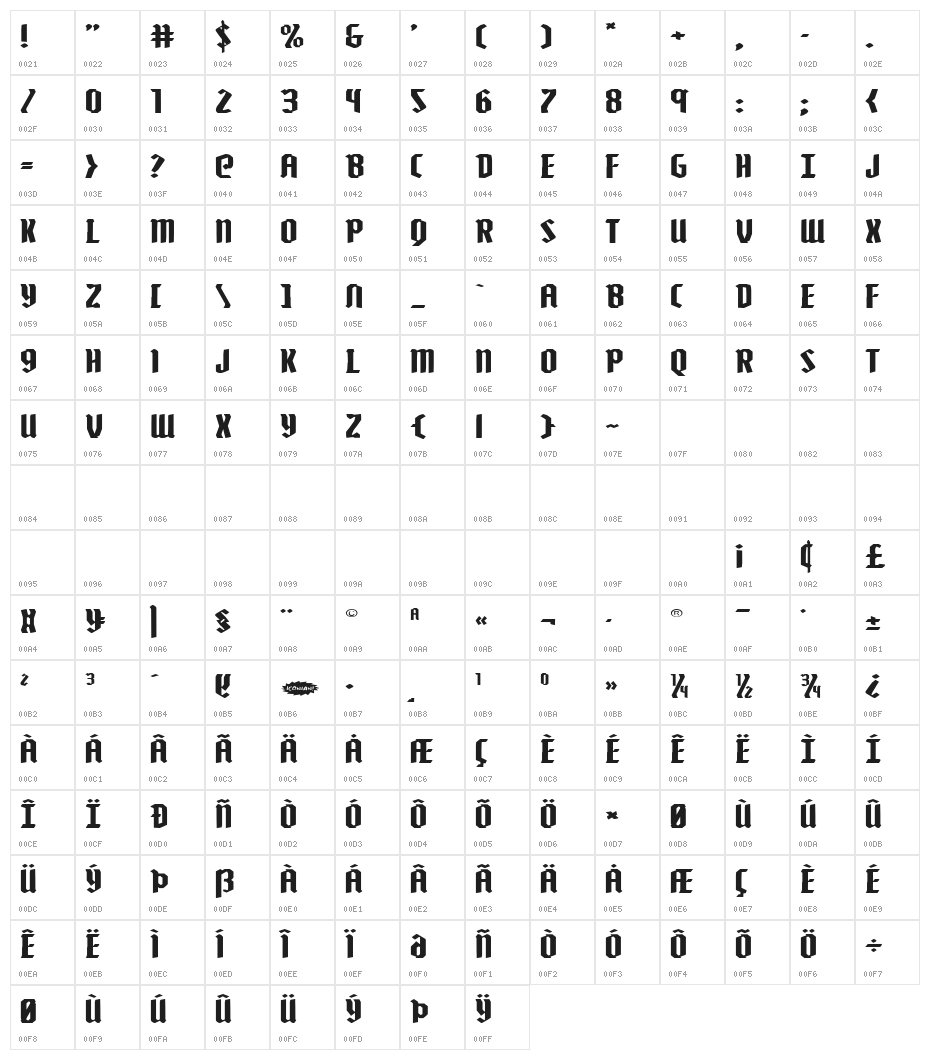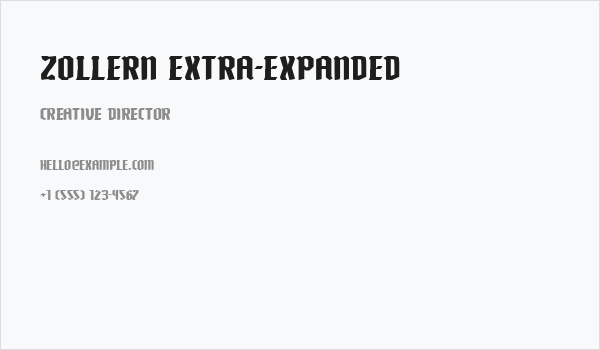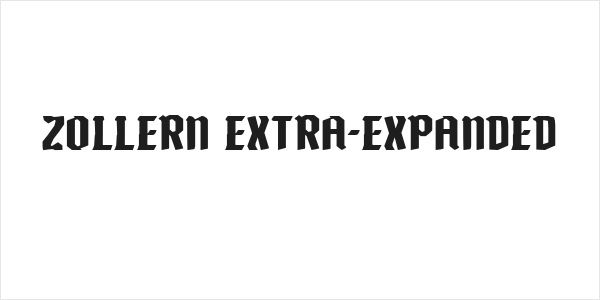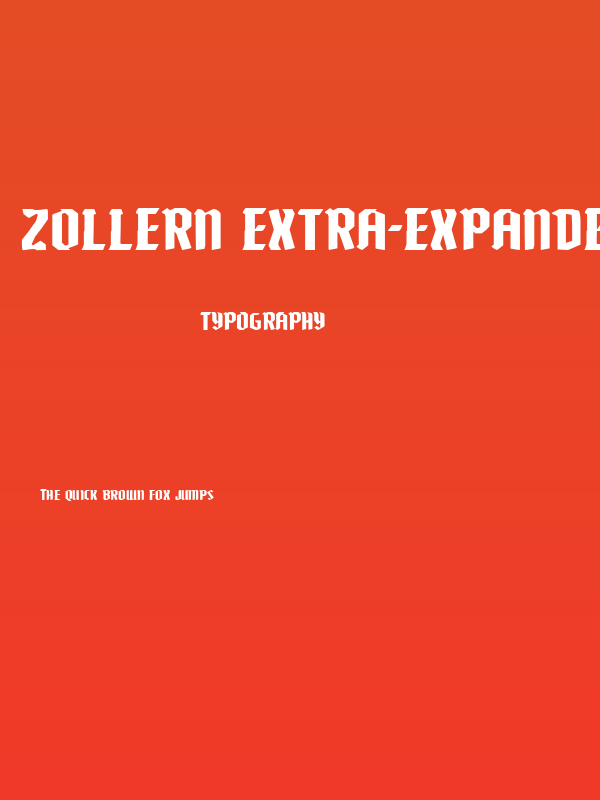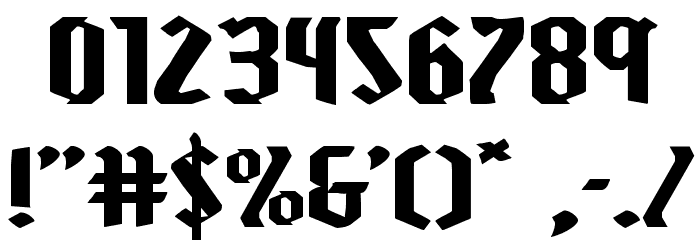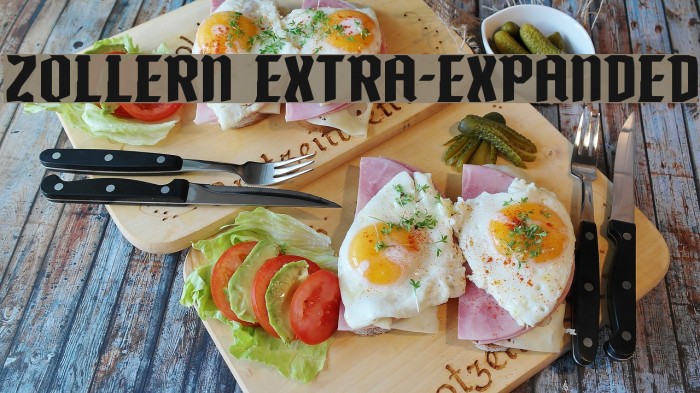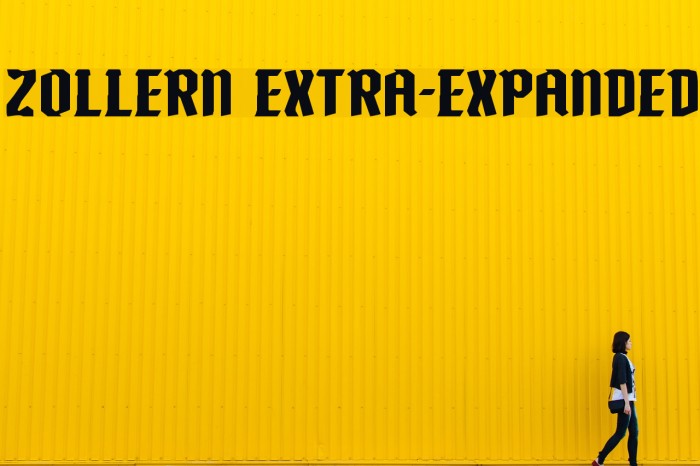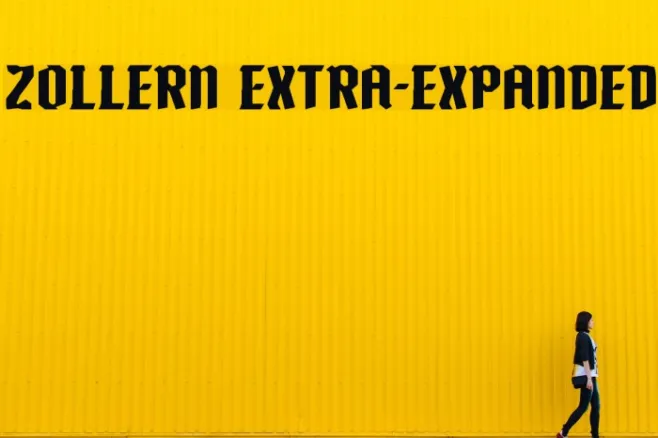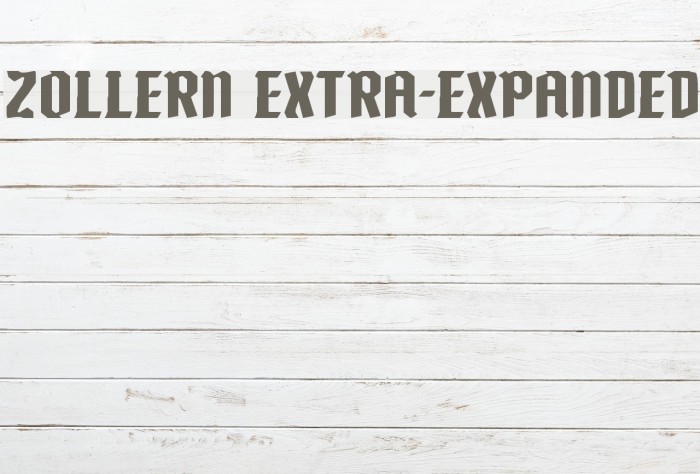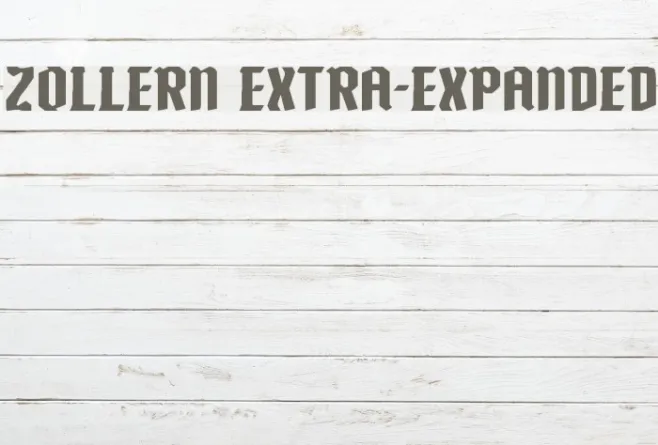
Zollern Extra-Expanded Font
Zollern Extra-Expanded Description
This font exhibits a bold and striking appearance, characterized by its sharp, angular lines and strong geometric shapes. The uppercase letters are particularly prominent, with a distinct Gothic influence that gives them a dramatic and authoritative presence. The characters are tightly spaced, enhancing the font's compact and impactful look. The numbers and special characters maintain the same boldness and angularity, ensuring consistency across all glyphs. This font's unique style makes it ideal for projects that require a strong visual impact.
| Proposed Projects | Ideal for branding, posters, headlines, and any design requiring a bold, impactful typeface. |